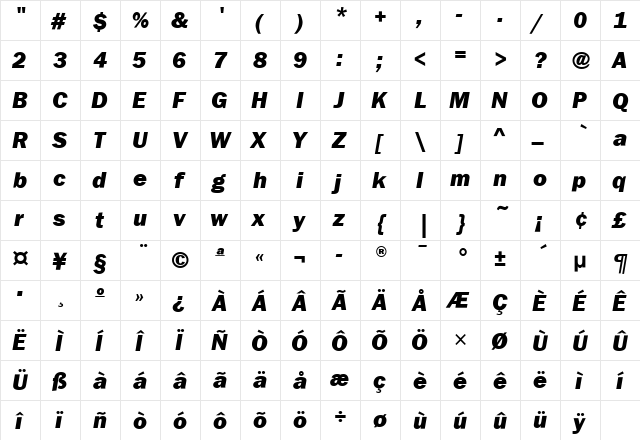
FranklinGotMdITC Heavy Italic Font Preview
FranklinGotMdITC Heavy Italic
FranklinGotMdITC Heavy Italic Font Details
Design Context for FranklinGotMdITC Typeface
FranklinGotMdITC is a composed and adaptable typeface that performs quietly and consistently across a wide range of design contexts. The dynamic lean of this cut emphasises speed and emphasis in any layout.
Pro Tip: Use FranklinGotMdITC for emphasis, pull quotes, and subheadings where its slanted energy can add rhythm to the layout.